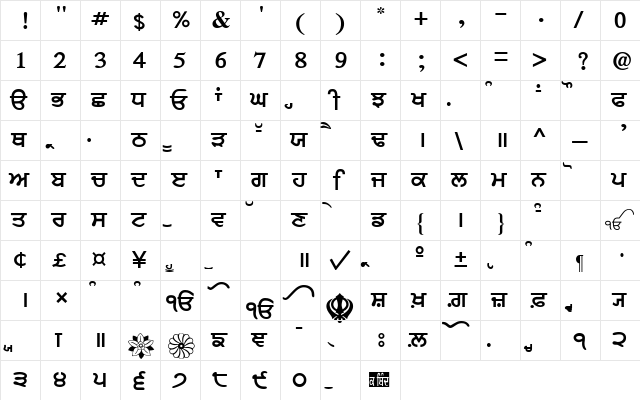
SamtolThick Regular
Design Context for SamtolThick Typeface
SamtolThick offers clean, dependable letterforms without strong stylistic allegiance, making it a practical choice for designers who need flexibility.
Pro Tip: Use SamtolThick in both headline and body roles to test its range before committing to a single application.